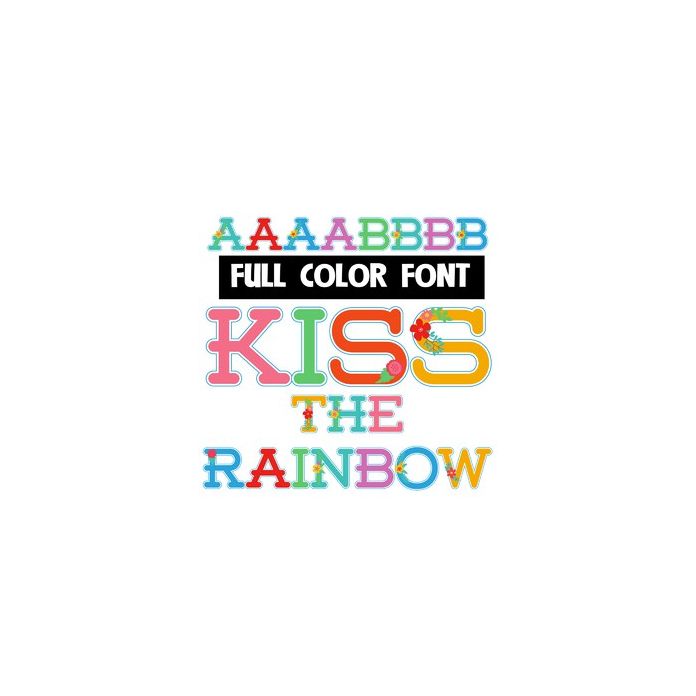
This full-color font features the colors of the rainbows and cute flower arrangements. There is a an alt version w/ secondary colors available through your system's or Silhouette's glyph map.